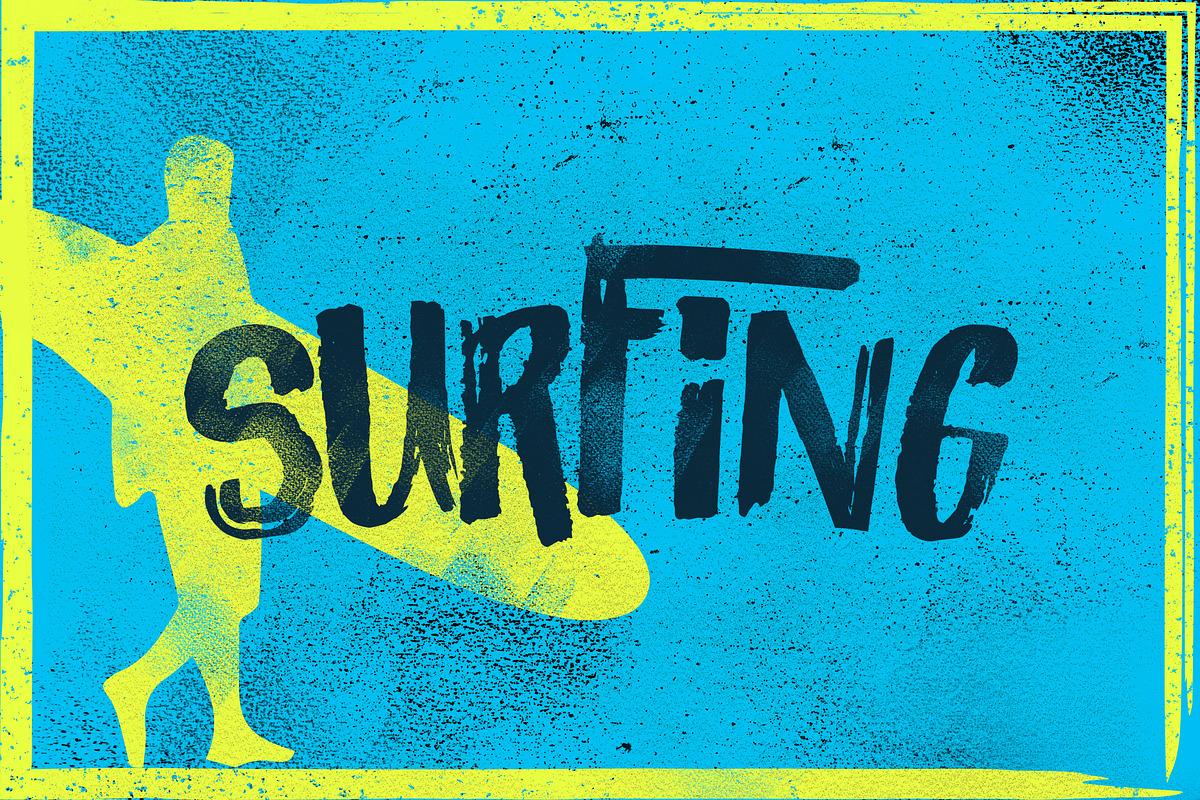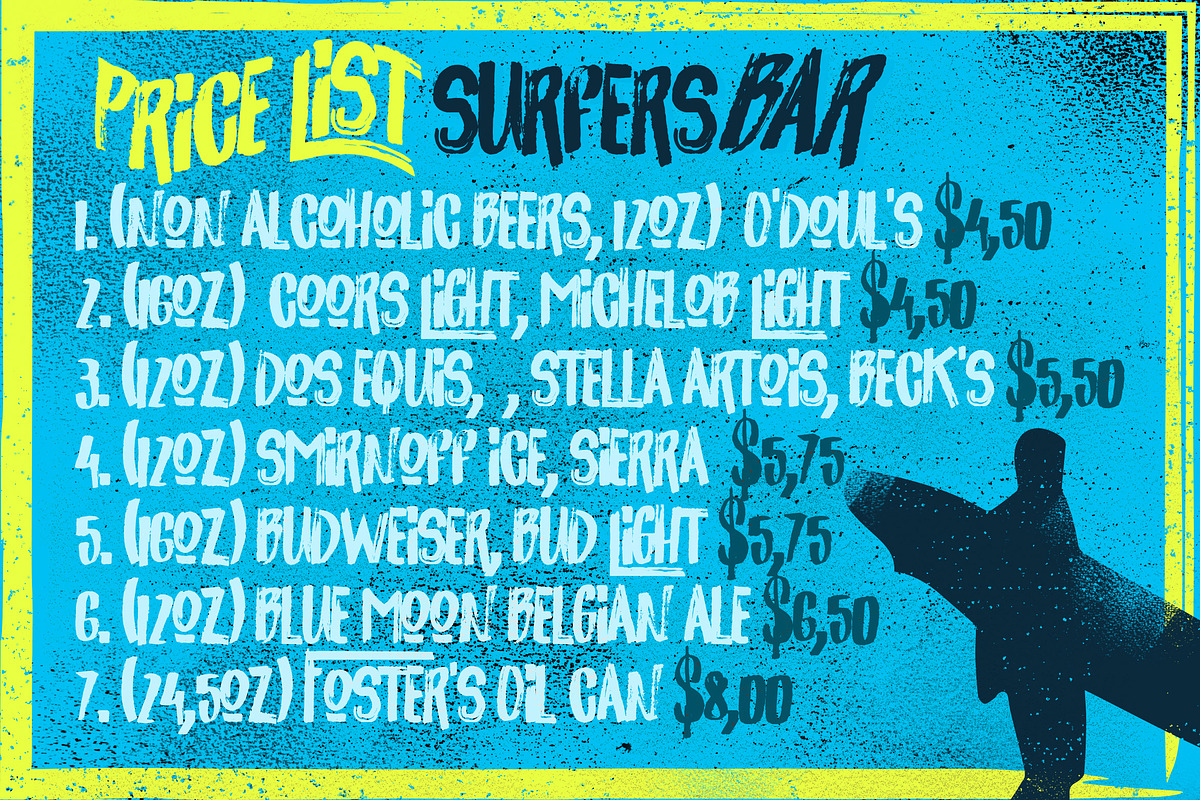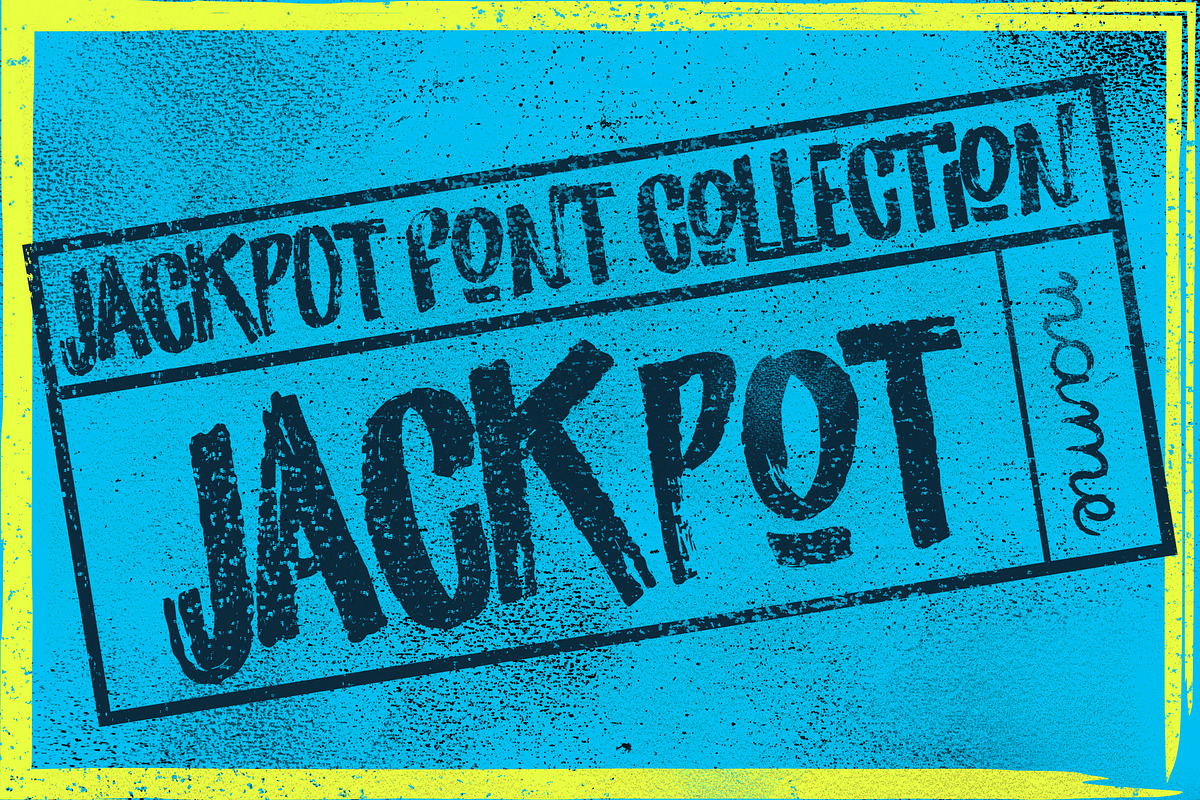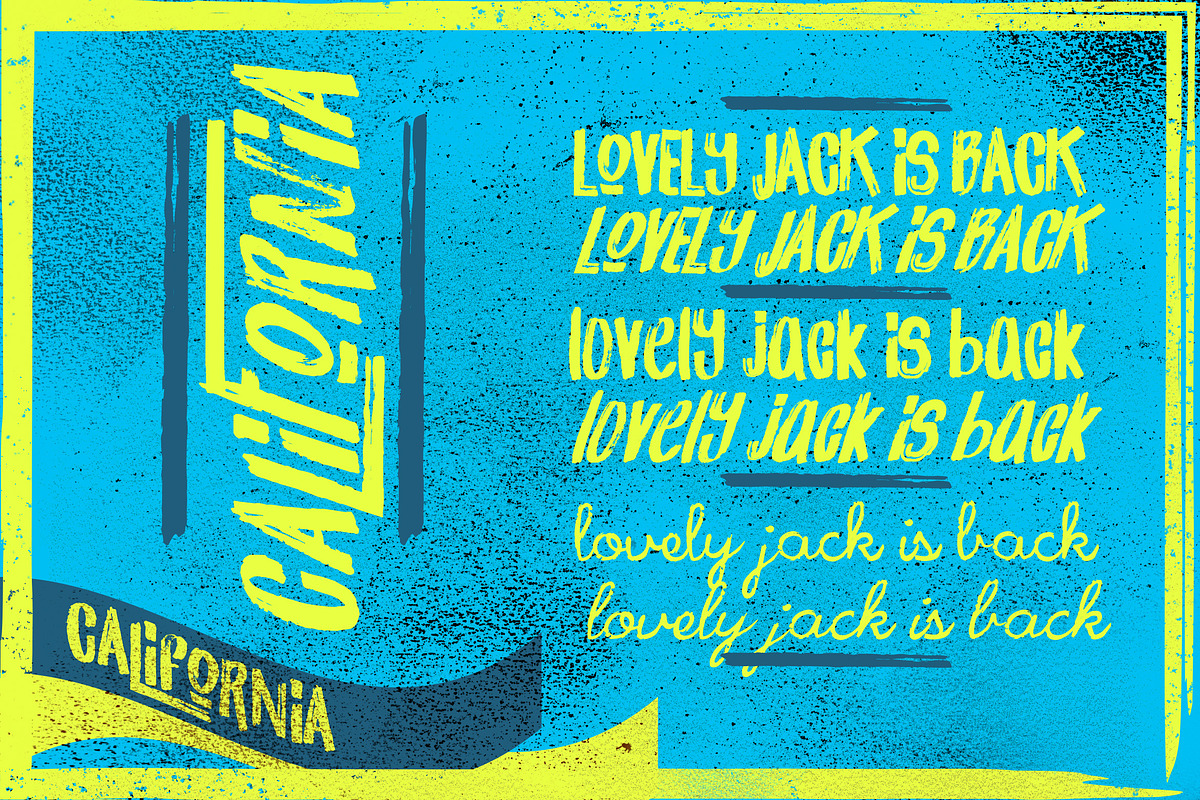
California Jackpot Font
California Jackpot Font by LeoSupply.co is a font selected for branding, posters, packaging, typography.
- Combinate uppercase and lowercase letters to get interesting text styles.
- JACKPOT SHORT - Hand brushed font including all uppercase letters which has a complete set of A-Z, and support for US glyphs letters.
- JACKPOT SCRIPT Hand brushed script font including all lowercase letters which has a complete set of A-Z.
- JACKPOT LOWERCASE Hand brushed font including all uppercase and lowercase letters which has a complete set of A-Z, and support for US glyphs
- Combinate uppercase and lowercase letters to get interesting text styles.
Why California Jackpot Font is worth a look
California Jackpot Font by LeoSupply.co fits naturally into Branding, posters, packaging, typography.